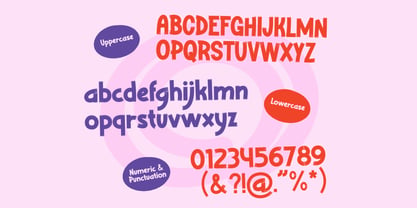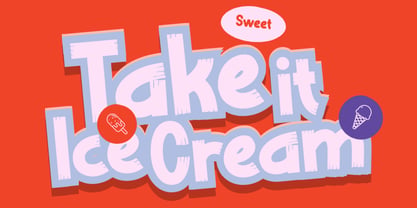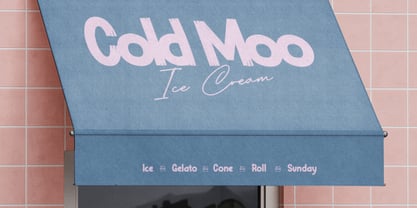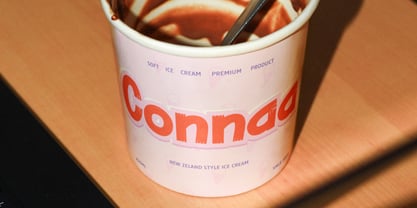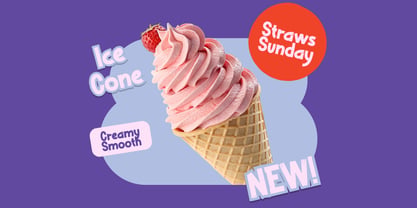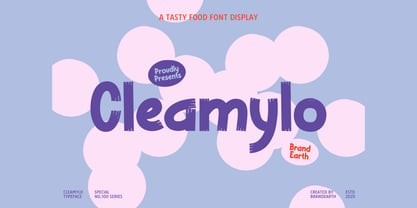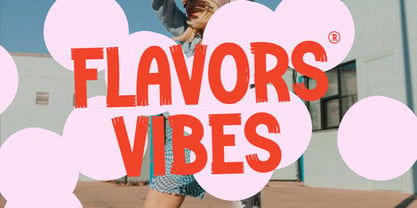
Cleamylo
by Brandearth
The Cleamylo Font Family was designed by Moch Rasjid Wiyono and published by Brandearth. Cleamylo contains 1 styles. More about this family
Creamylo is a bold display typeface featuring a playful, textured brush style with rounded edges and expressive irregular strokes. The font includes full uppercase, lowercase, numerals, and punctuation, designed with a handcrafted aesthetic that adds warmth and personality. This font is highly relevant for cheerful and expressive design themes where personality and visual impact are key. It works well for food branding, snack packaging, dessert menus, kids-oriented products, social media graphics, posters, and playful advertising campaigns. The textured strokes and rounded forms help create a friendly, approachable tone that stands out in casual and creative visual communication.
Designers: Moch Rasjid Wiyono
Foundry: Brandearth